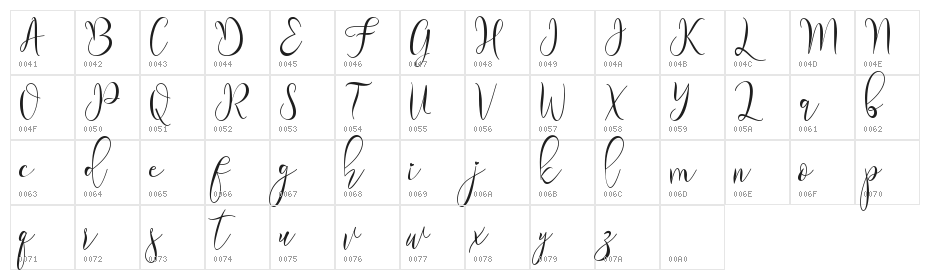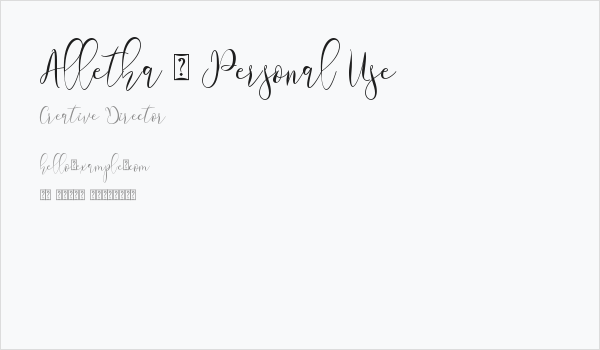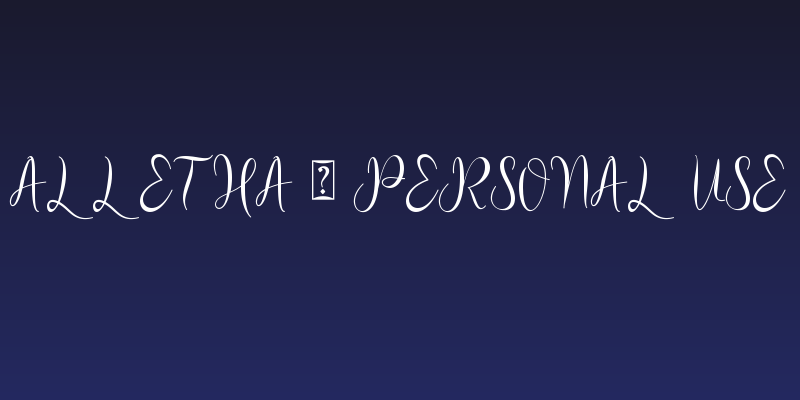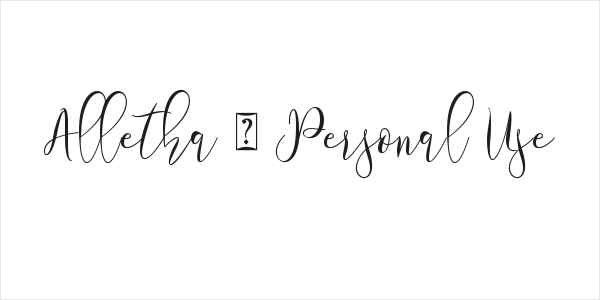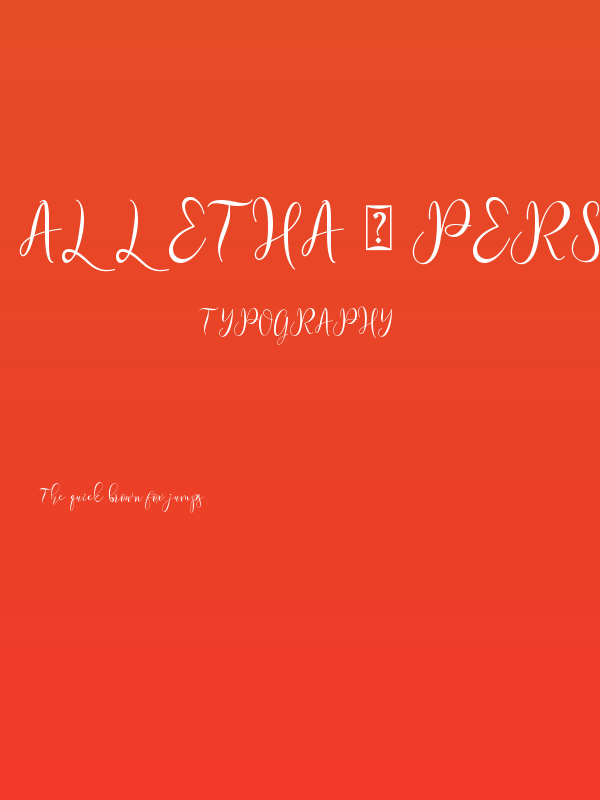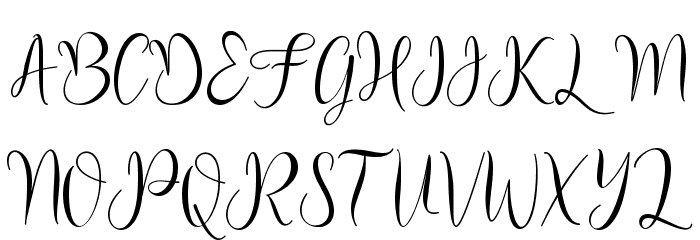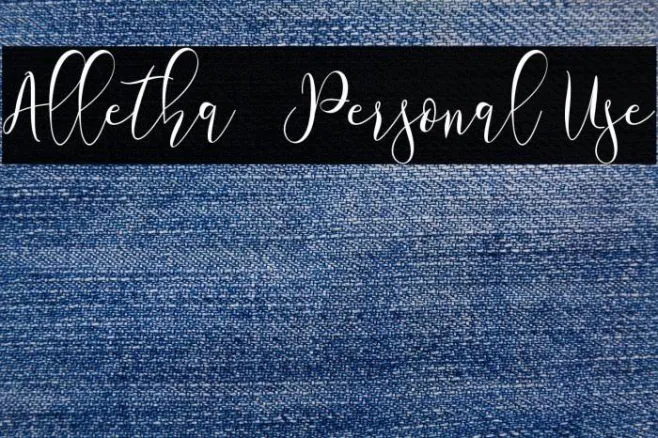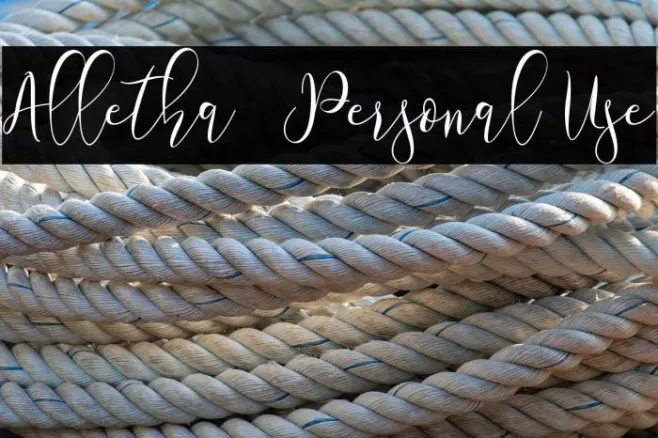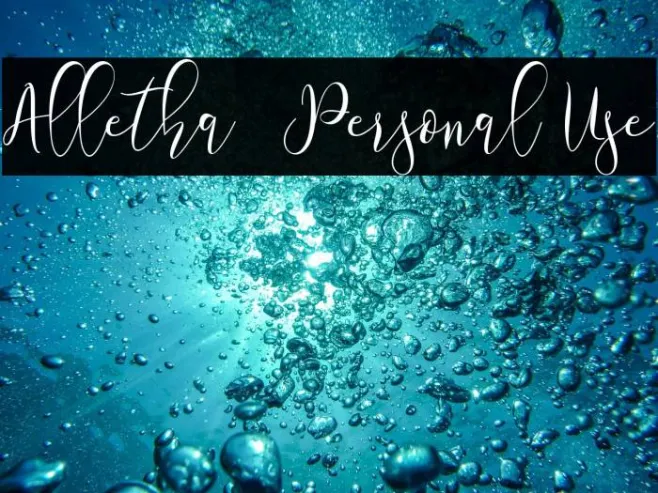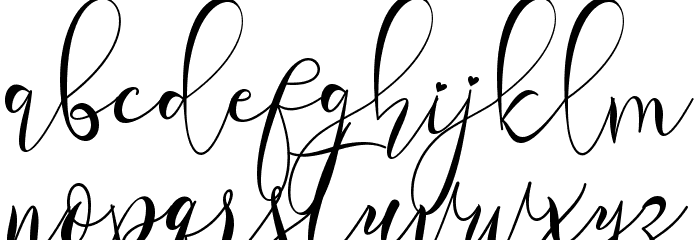
Alletha - Personal Use Font
Alletha - Personal Use Description
This elegant script font features fluid, graceful strokes that mimic the natural flow of handwriting. The uppercase letters are characterized by their sweeping curves and loops, while the lowercase letters maintain a consistent slant and delicate form. The font's overall appearance is both sophisticated and approachable, making it suitable for a variety of design projects. The characters are well-spaced, allowing for readability without sacrificing style. This font is perfect for adding a personal touch to invitations, greeting cards, or branding materials.
| Proposed Projects | Ideal for wedding invitations, personal branding, greeting cards, and elegant stationery. |